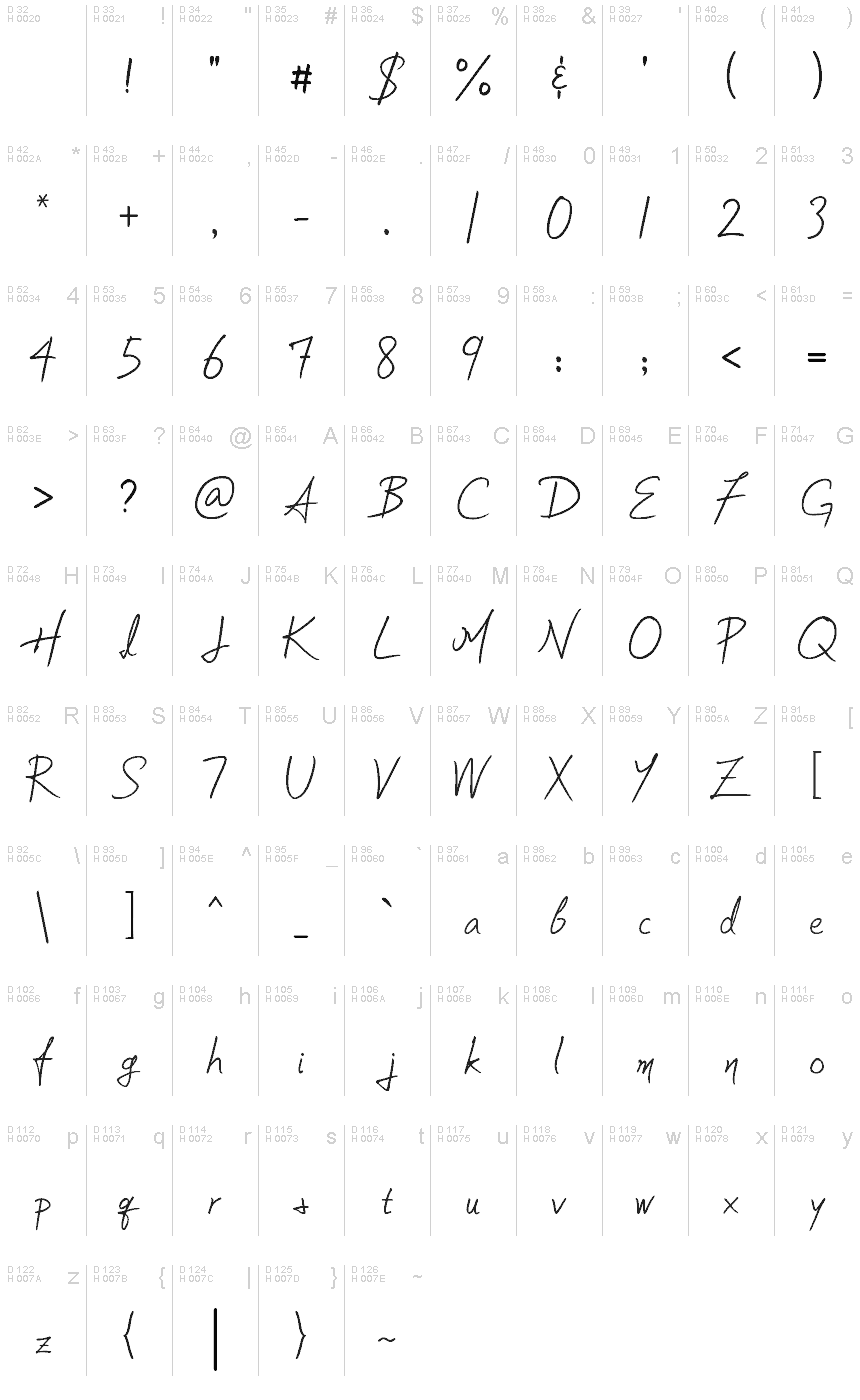
Soljik-Dambaek
Soljik-Dambaek emerges as a breath of fresh air in the realm of typography, with its extra-light weight and handwritten style that exudes a delicate and personal touch. Crafted by the skilled hands at Yleefonts, this font carries an organic flow and an understated elegance that speaks volumes in its simplicity.
The sweeping strokes and light touch of Soljik-Dambaek suggest a sense of intimacy, making it an excellent choice for invitations, personal correspondence, or any project aiming to convey authenticity and warmth. Its artistic flair is matched by its legibility, ensuring that your message is not just seen but felt.
Embrace the aesthetic charm of Soljik-Dambaek to infuse your creative endeavors with a subtle sophistication that's versatile enough for both print media and digital platforms. Whether you're looking to add a humanistic touch to branding materials or craft a narrative with visual appeal, this font stands as an ode to the artistry within the written word.
- This font does NOT support Korean glyphs (letters).
- Redesigned 7, C, D and kerned related pairs.